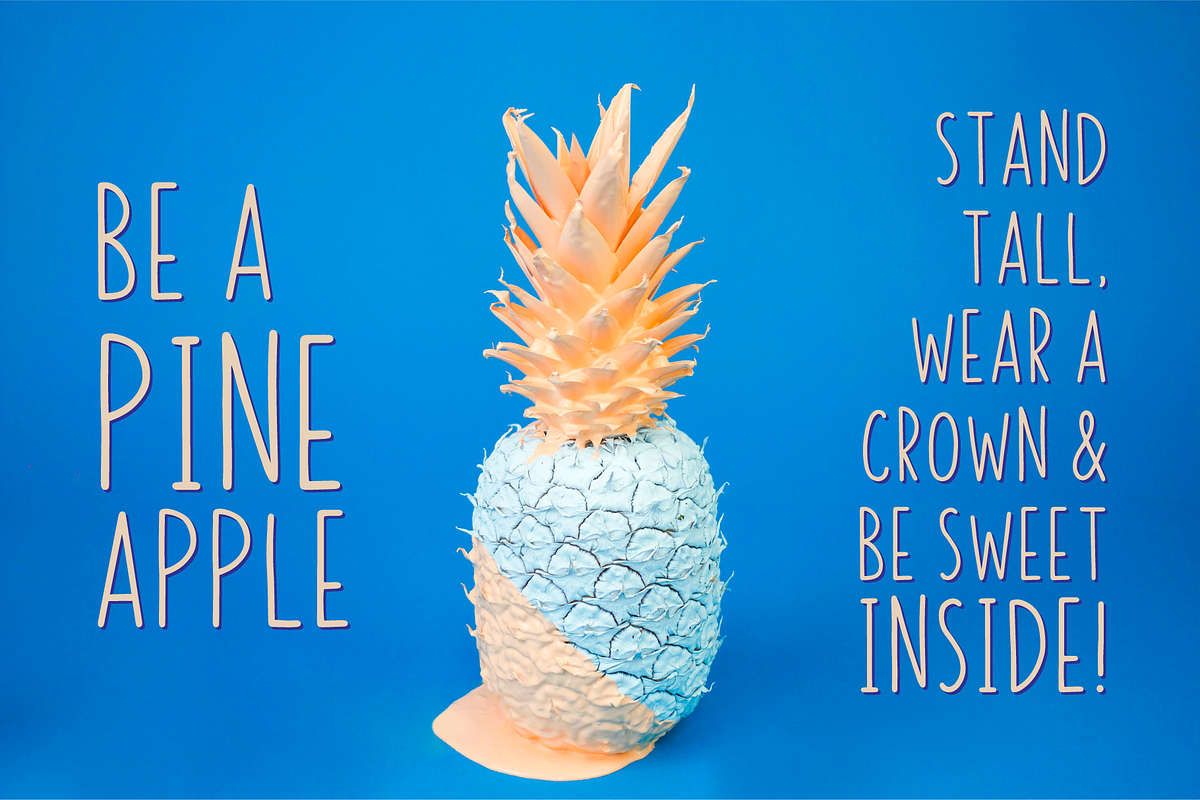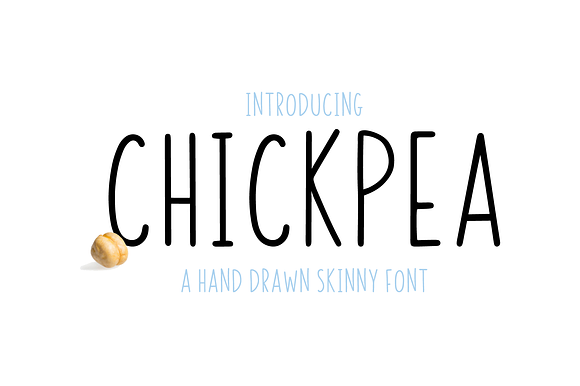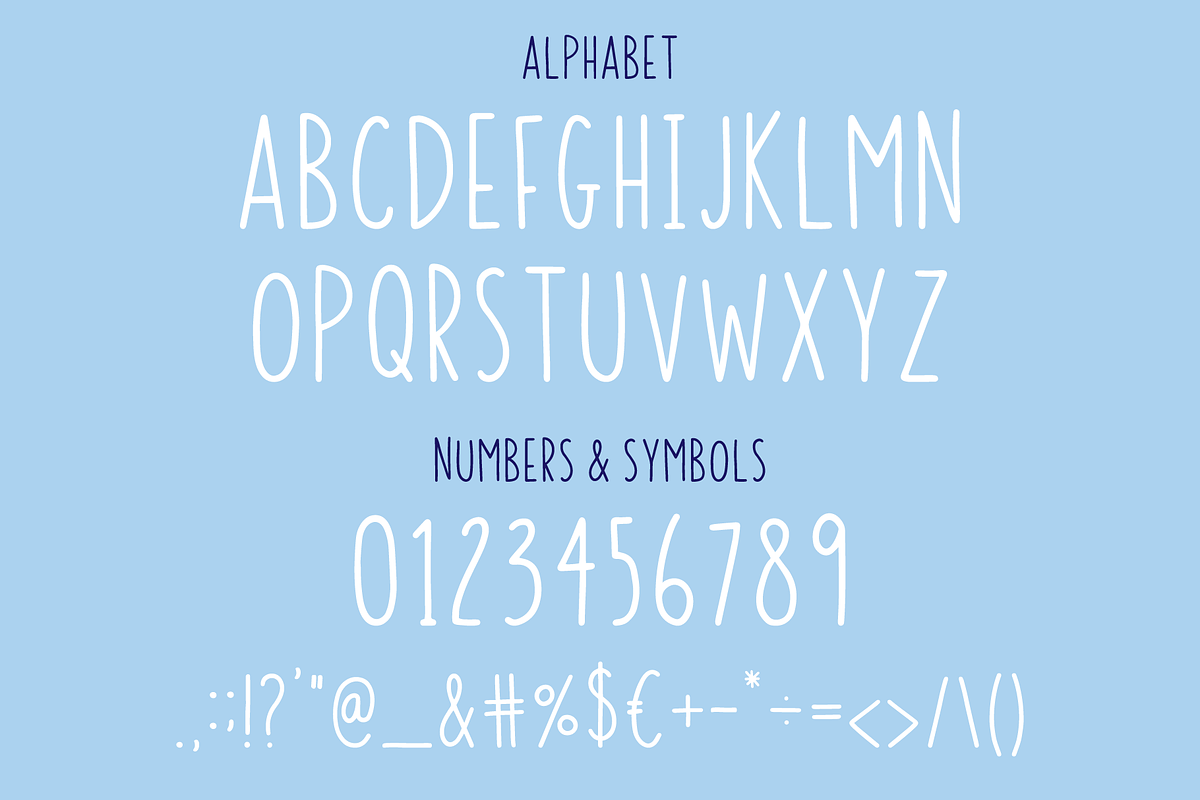
Chickpea | All Caps Skinny Font
Introducing Chickpea, a wholesome hand drawn (by me!) skinny all caps font!
all caps uppercase characters
numbers and special characters.